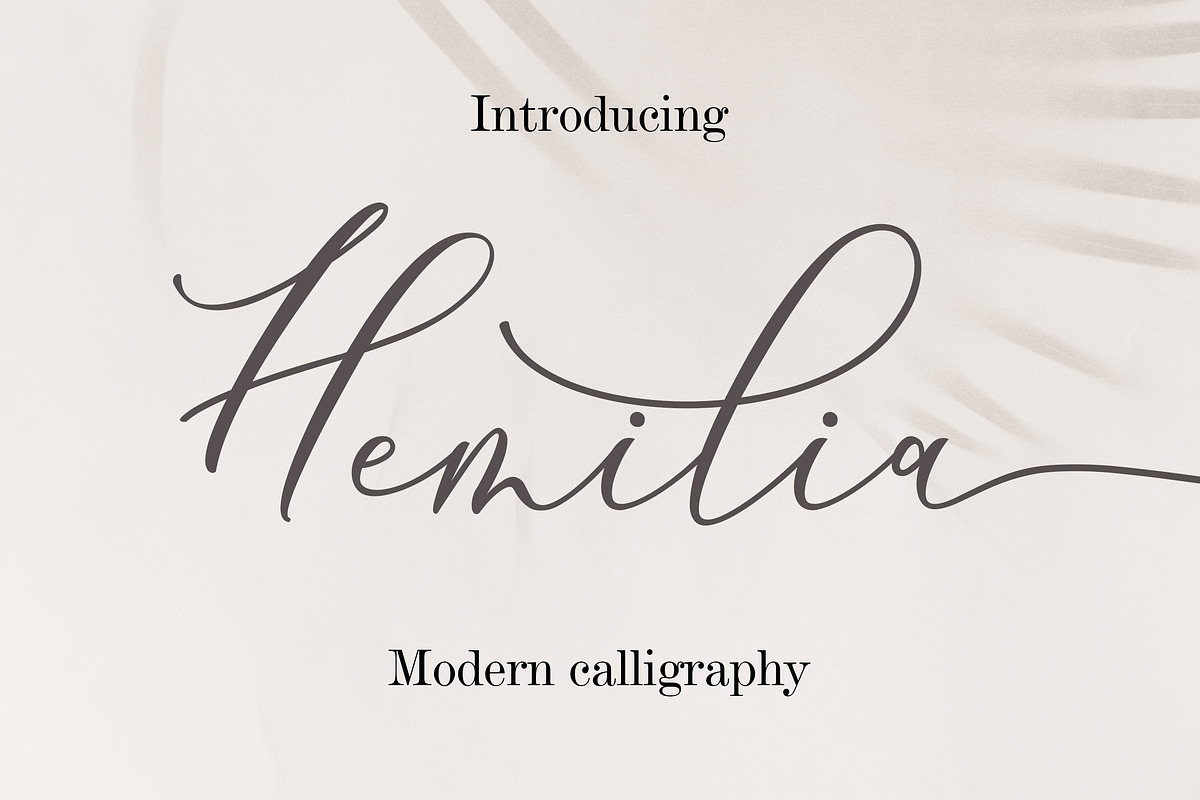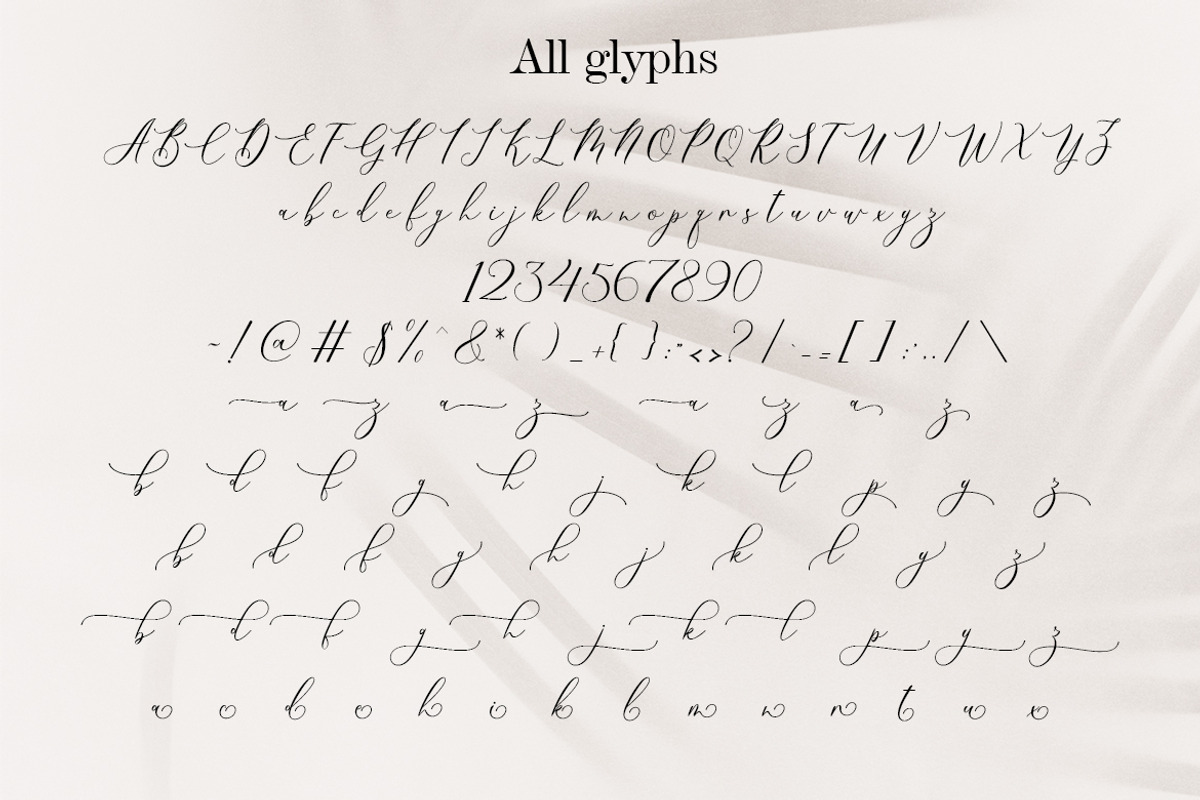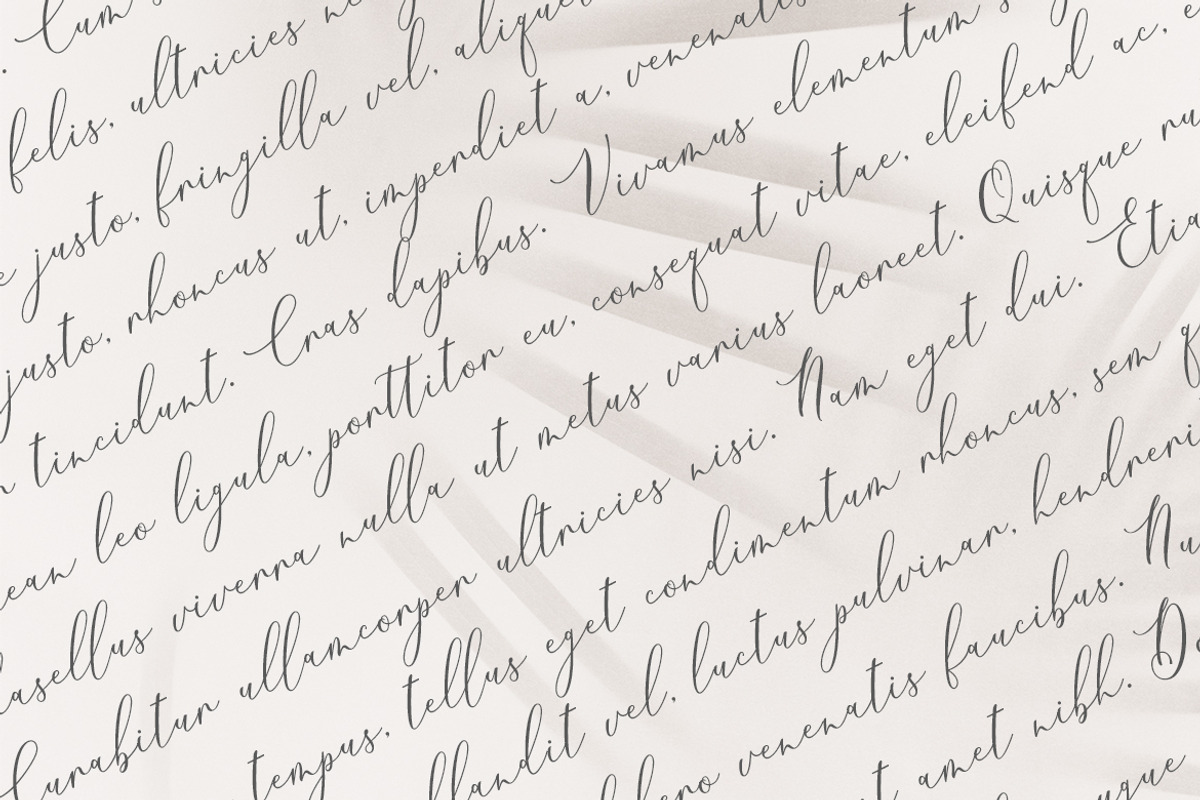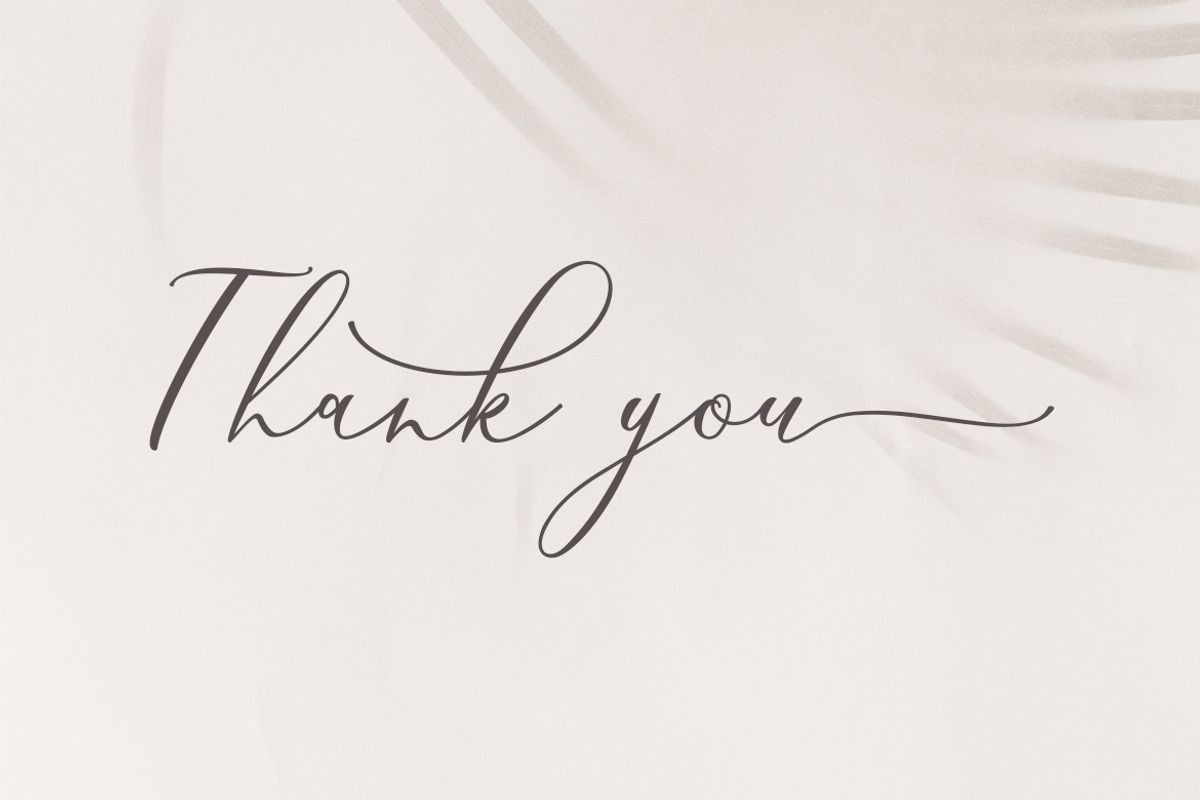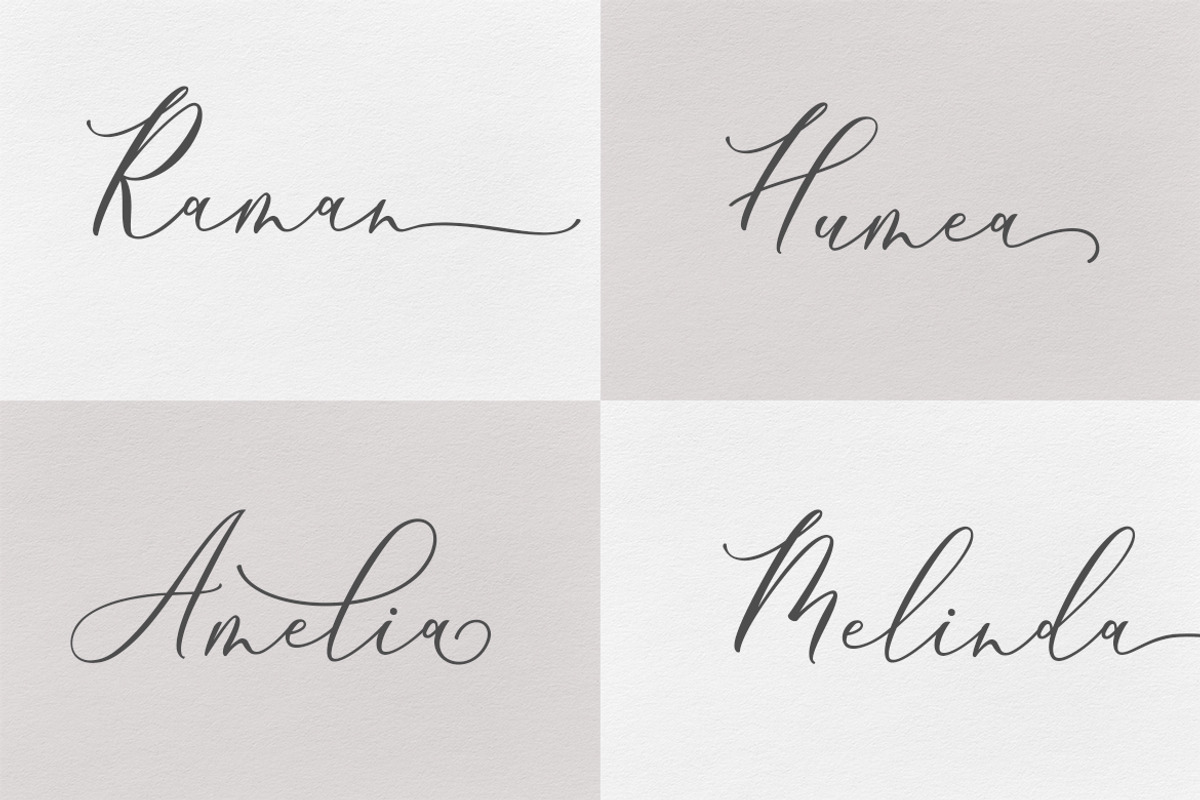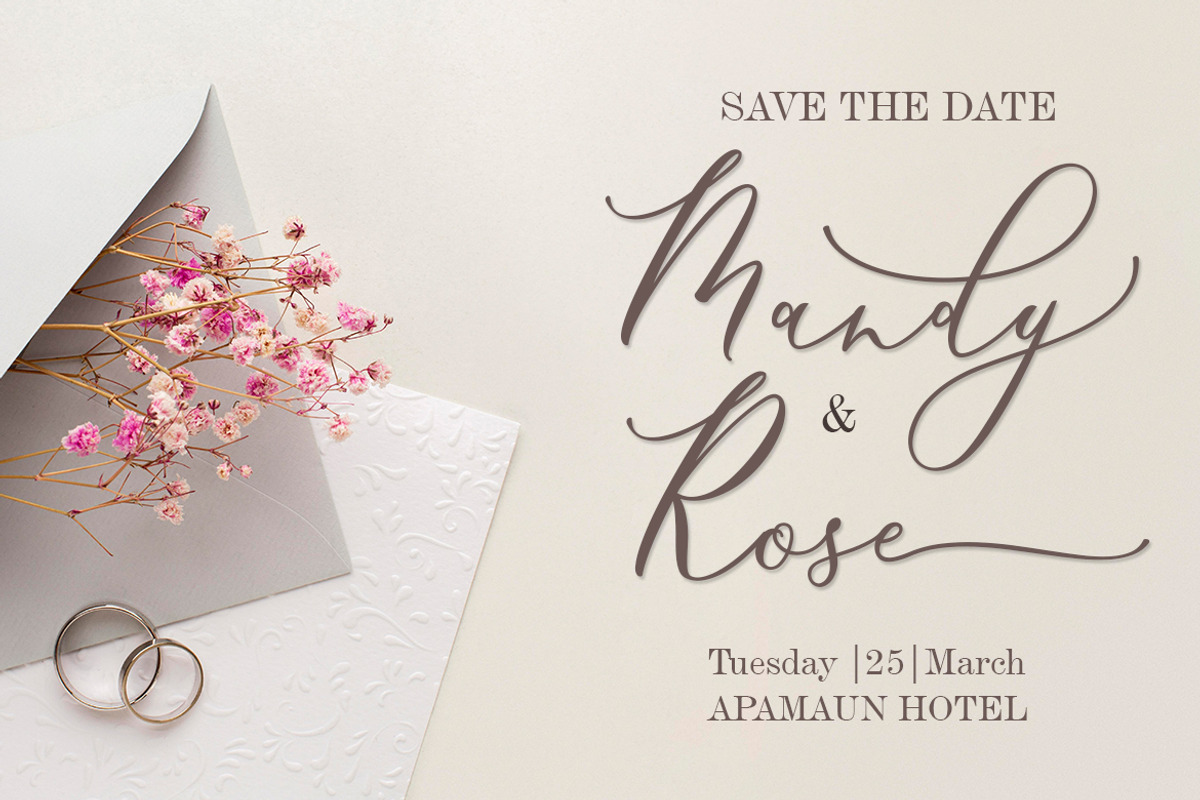
Hemilia Script
Font Hemilia is a delicate and elegant script font with a modern and sophisticated appearance. Its thin letterforms feature fluid strokes and subtle curves, creating a graceful and refined feel. The font is perfect for designs that require a sense of elegance and sophistication, such as wedding invitations, branding, or editorial design.